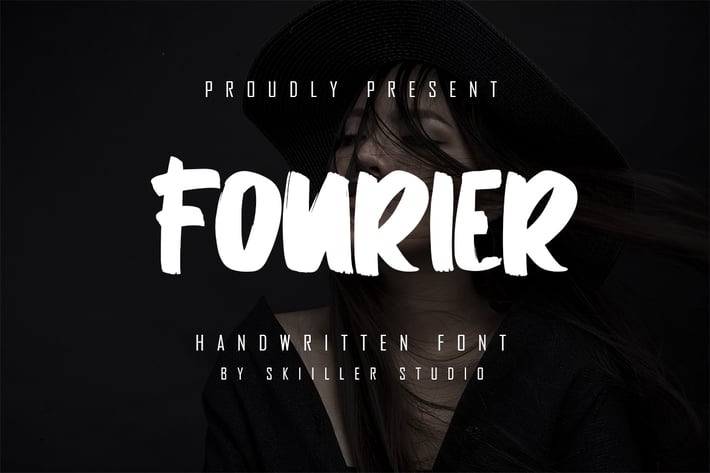
Fourier - Handwritten Font
Fourier is a modern and brushed handwritten font, crafted to give your headlines and logotype projects a stylish touch. This font reads as strong, confident, and dynamic and can add tons of urban character to your designs.